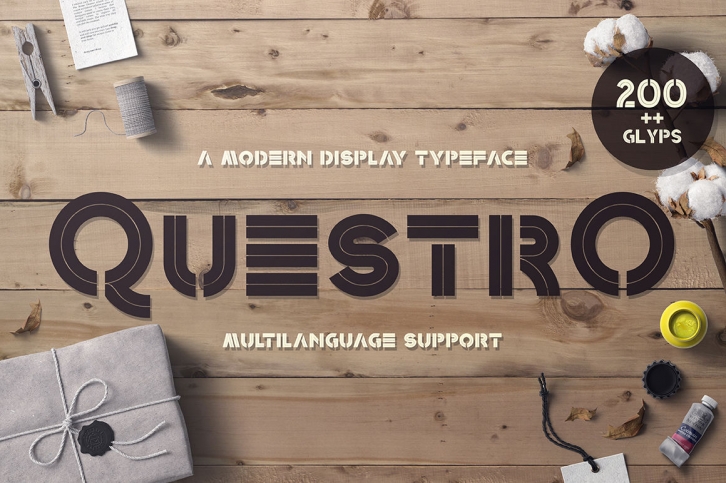
Questro is a decorative sans serif that fashions a strong geometric anatomy and sharp curves. This font is absolutely suitable for headings, logo, invitation, quotes, apparel design, logo type, and any kind of graphic layout. Font features include uppercase , lowercase (small caps), numerals, punctuation (OpenType Standard) and basic ligatures.